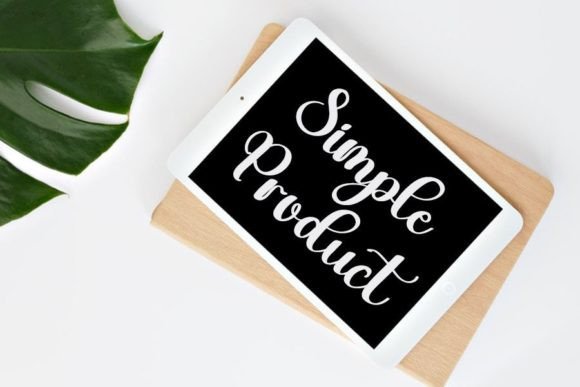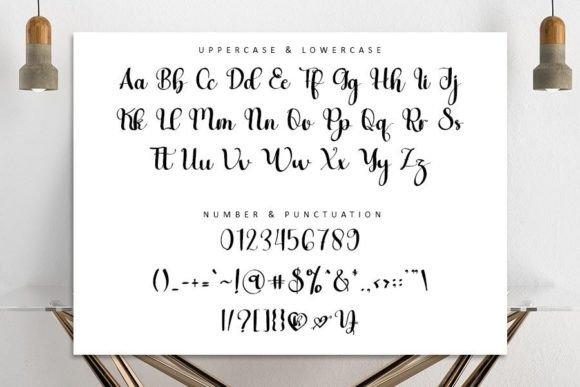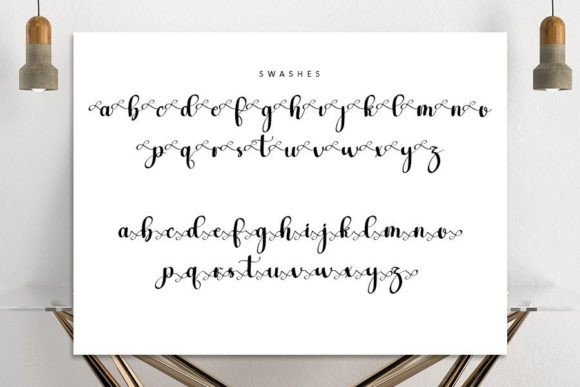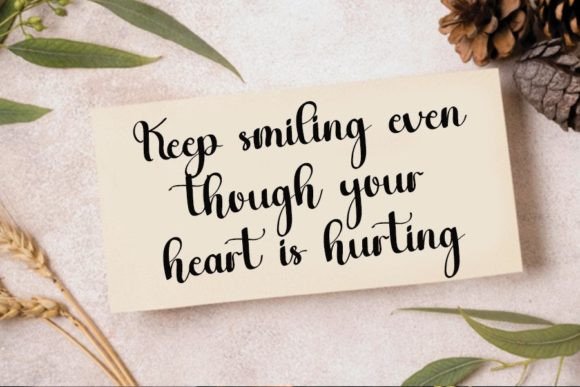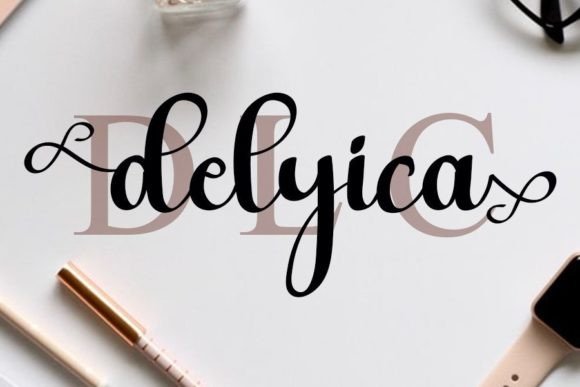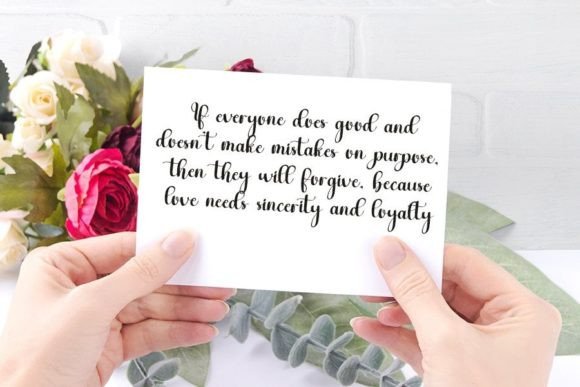
Discover the Elegance of Forgotten Font: A Timeless Script Font for Modern Designs
In the realm of typography, certain fonts leave a lasting impression, transcending trends and becoming staples in the world of design. Among these, the Forgotten Font stands out—a beautiful, refined script font that embodies class, elegance, and modernity. Whether you’re a professional designer, a crafty DIY enthusiast, or a business owner looking to elevate your brand, Forgotten Font offers a versatile and stylish solution for a myriad of design needs.
The Essence of Forgotten Font
Forgotten Font is not just any script font; it’s a masterpiece crafted with precision and a keen eye for detail. Its classy, elegant, and modern look makes it an ideal choice for various design projects, including logos, branding, invitations, stationery, wedding designs, social media posts, and more. The font’s versatility is one of its most compelling features, allowing it to seamlessly integrate into both digital and print designs.
Key Features of Forgotten Font
- PUA Encoding: One of the standout features of Forgotten Font is its PUA (Private Use Area) encoding. This means that users can easily access all the glyphs and ligatures, making the design process smoother and more creative. PUA encoding allows for the use of special characters and swashes, enabling designers to add unique touches to their work.
- Elegant Ligatures and Glyphs: The font comes with an array of ligatures and glyphs that can elevate any design. These special characters allow for a high level of customization, enabling designers to create truly unique pieces that stand out from the crowd.
- Wide Range of Applications: From professional branding to personal projects, Forgotten Font’s adaptability makes it suitable for various applications. It’s perfect for:
- Logos and branding: Create a lasting impression with a sophisticated logo that speaks elegance.
- Invitations and stationery: Add a touch of class to your wedding invitations, greeting cards, and personal letters.
- Wedding designs: Elevate your wedding stationery, programs, and decor with a font that exudes romance and sophistication.
- Social media posts: Stand out on social media with beautifully crafted text that captures attention.
Why Choose Forgotten Font?
In a sea of fonts, Forgotten Font distinguishes itself with its unique blend of elegance and modernity. Here are a few reasons why designers and crafters are drawn to this beautiful script font:
- Uniqueness: In a world where generic fonts are common, Forgotten Font offers a breath of fresh air with its distinctive style that can set your designs apart.
- Readability and Aesthetics: The font strikes a perfect balance between readability and aesthetics, making it suitable for both body text and headlines.
- Support for Creative Projects: Whether you’re working on a commercial project or a personal craft, Forgotten Font provides the flexibility and charm needed to bring your vision to life.
Tips for Using Forgotten Font Effectively
To make the most of Forgotten Font, consider the following tips:
- Pair it Wisely: Combine Forgotten Font with complementary fonts to create visual interest. A sans-serif font for body text can create a striking contrast.
- Experiment with Ligatures: Take advantage of the font’s ligatures and glyphs to add personality to your designs.
- Adjust Size and Color: Play with the font size and color to ensure your design is visually appealing and effectively communicates your message.
Forgotten Font is more than just a script font; it’s a design tool that can elevate your projects to new heights of elegance and sophistication. With its PUA encoding, elegant ligatures, and wide range of applications, it’s an excellent choice for designers and crafters looking to make a statement. Whether you’re aiming to create stunning logos, beautiful wedding stationery, or captivating social media posts, Forgotten Font offers the versatility and style needed to bring your creative visions to life.